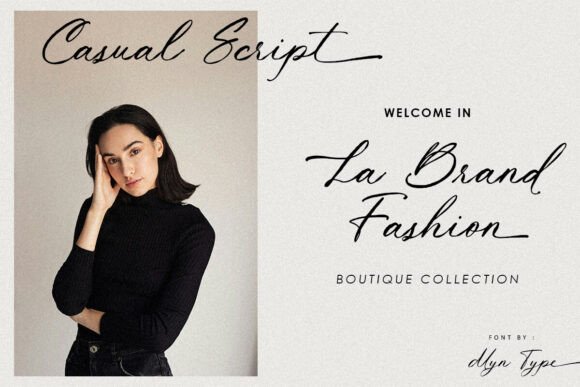
Mint Seira Font
Mint Seira is a beautifully crafted handwritten script font that exudes natural elegance and personality. Featuring natural scratches, flowing strokes and subtle imperfections, this font captures the essence of genuine handwriting. The added swashes provide a touch of sophistication, perfect for making your designs stand out with flair.